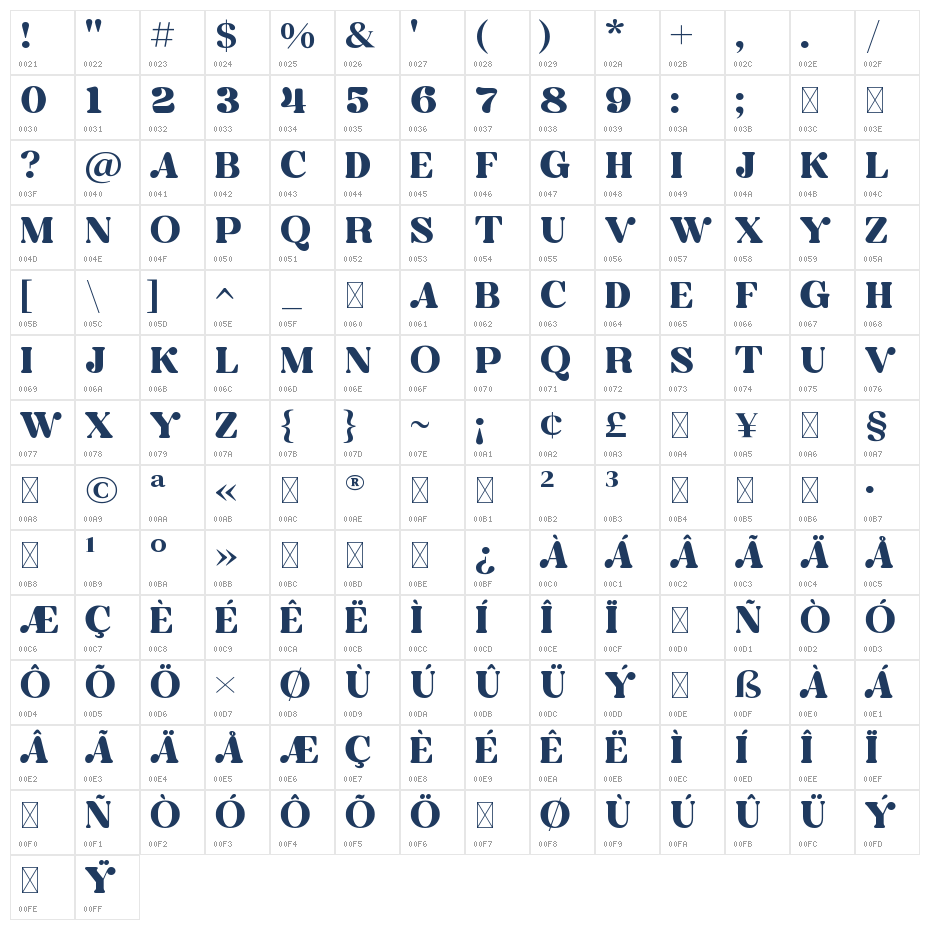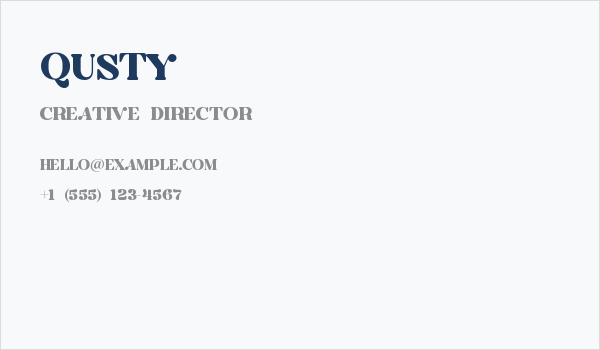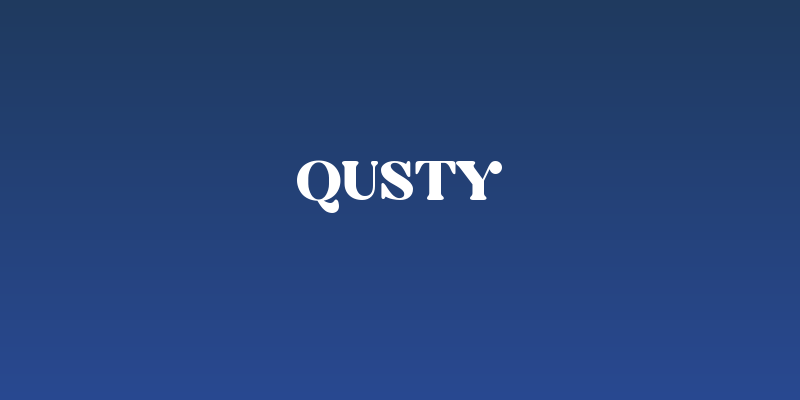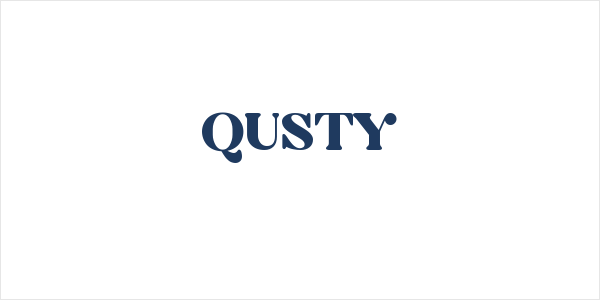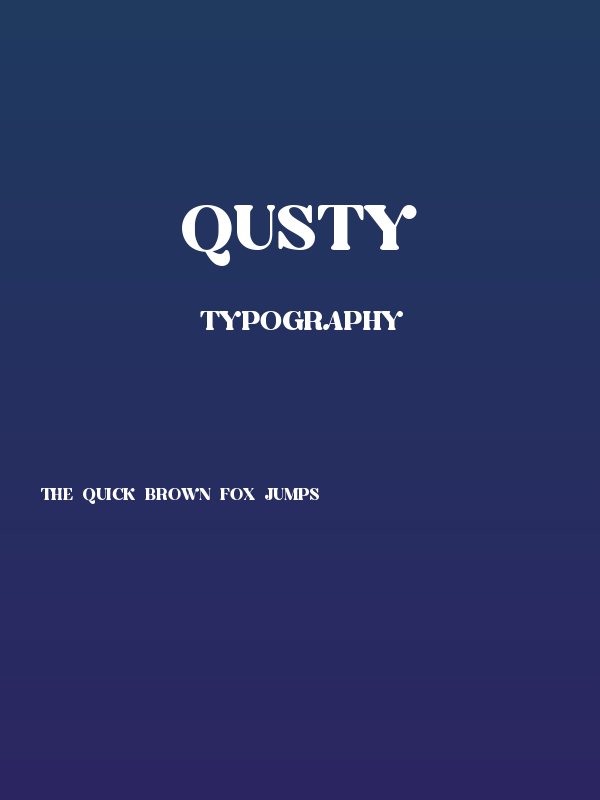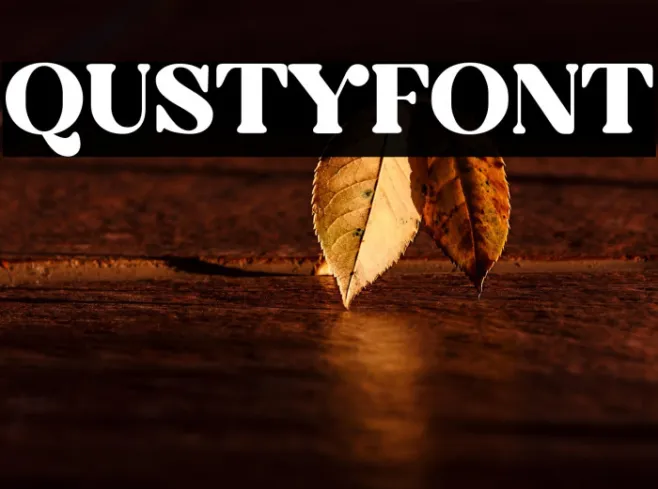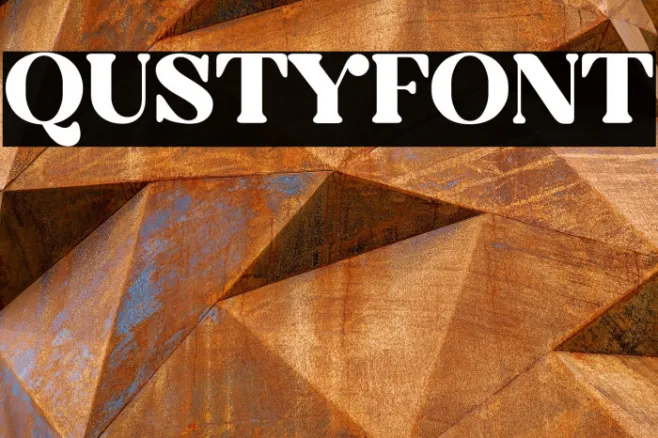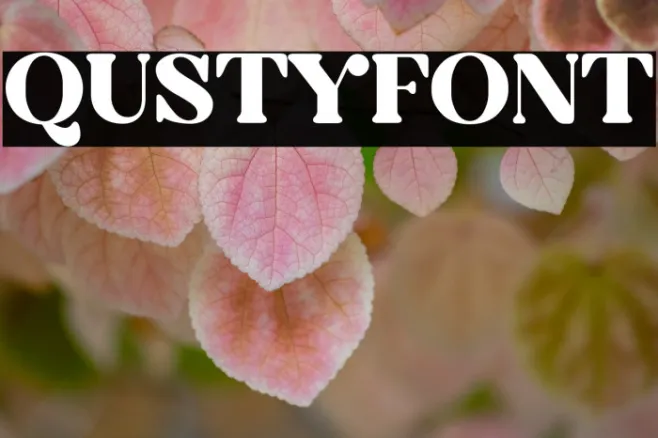
QUSTY Font
QUSTY Description
Bold, vintage serif font with a strong, decorative style featuring thick strokes and distinctive serifs.
| Overall Style | Vintage, Retro |
| Use Case | Headlines, Logos, Posters, Branding |